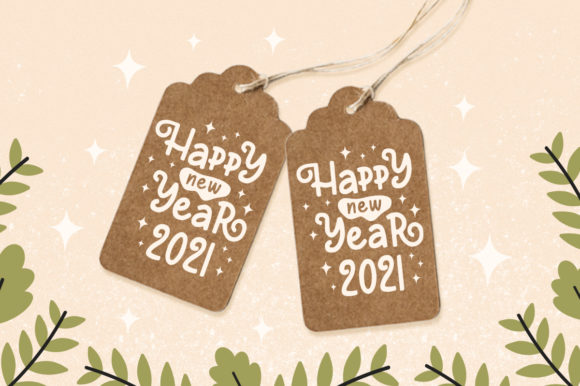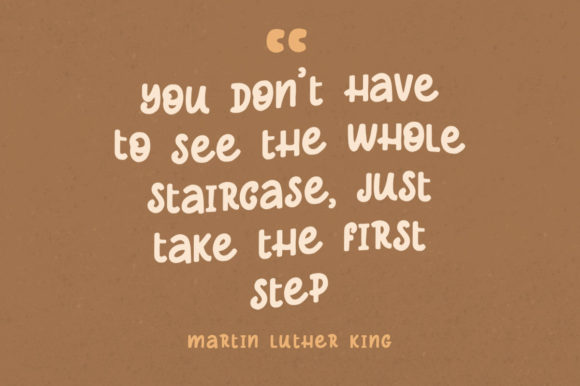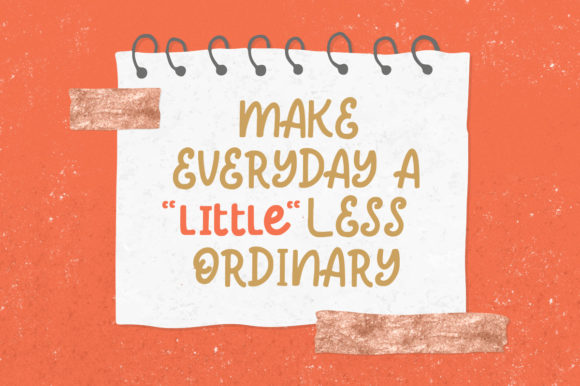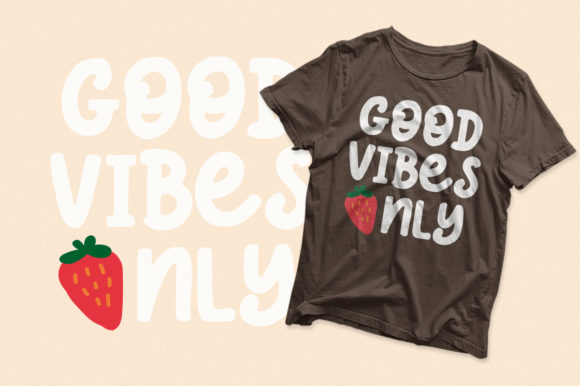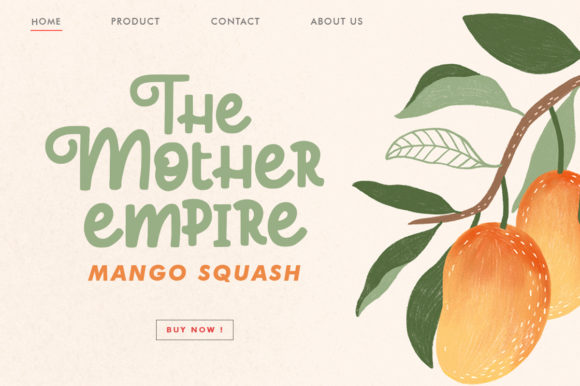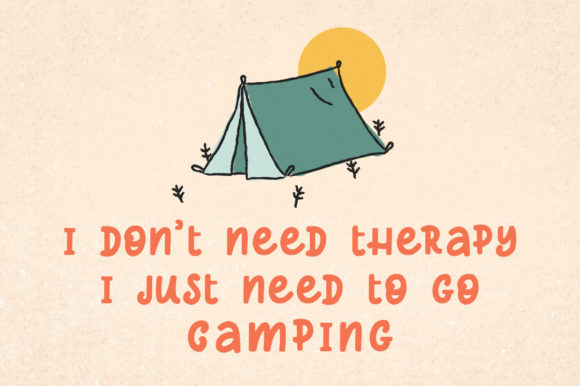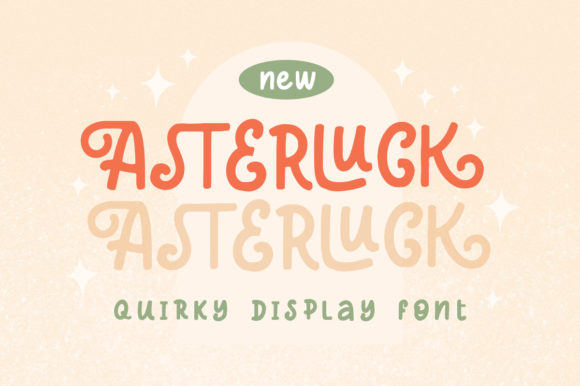
Asterluck Font: Elevate Your Designs with a Trendy and Versatile Display Font
In the world of design, fonts play a crucial role in conveying messages, evoking emotions, and creating visual identities. Among the numerous fonts available, Asterluck stands out as a highly versatile and trendy display font that can instantly elevate your designs. With its unique and all-round design, Asterluck is perfect for designers and crafters looking to add a touch of sophistication and style to their projects.
What Makes Asterluck Font So Special?
Asterluck is an incredibly veritable display font that boasts a trendy and modern design. Its unique features make it an ideal choice for a wide range of design projects, from branding and advertising to packaging and digital media. Here are some key characteristics that set Asterluck apart:
- Trendy Design: Asterluck’s design is inspired by current typography trends, making it perfect for designers who want to create modern and stylish designs.
- Versatility: This font is highly versatile and can be used for various design projects, including headings, titles, and short texts.
- All-Round Design: Asterluck’s design is well-balanced, making it suitable for use in a variety of contexts, from digital media to print materials.
How to Use Asterluck Font in Your Designs
Asterluck is an excellent choice for designers and crafters who want to add a touch of elegance and sophistication to their projects. Here are some ideas on how to use Asterluck in your designs:
- Branding and Logo Design: Use Asterluck to create stunning logos and brand identities that stand out from the crowd.
- Advertising and Marketing: Add a touch of style and sophistication to your ad campaigns and marketing materials with Asterluck.
- Packaging Design: Use Asterluck to create eye-catching packaging designs that grab attention and leave a lasting impression.
- Digital Media: Asterluck is perfect for digital media, including social media graphics, blog posts, and website headers.
Benefits of Using Asterluck Font
By using Asterluck in your designs, you can enjoy several benefits, including:
- Unique and Memorable Designs: Asterluck’s trendy design ensures that your designs stand out and leave a lasting impression.
- Time-Saving: With Asterluck, you can create stunning designs quickly and efficiently, saving you time and effort.
- Consistency: Asterluck’s all-round design ensures consistency across your designs, helping to establish a strong visual identity.
Tips for Getting the Most Out of Asterluck Font
To get the most out of Asterluck, here are some tips to keep in mind:
- Experiment with Different Sizes and Colors: Asterluck looks great in various sizes and colors, so don’t be afraid to experiment and find the perfect combination for your design.
- Pair with Other Fonts: Asterluck pairs well with other fonts, so try combining it with complementary fonts to create visually appealing designs.
- Use in Combination with Images: Asterluck looks great when used in combination with images, so try using it to add text to your images and graphics.
In conclusion, Asterluck is an incredibly veritable display font that can elevate your designs and help you create stunning visual identities. With its trendy and all-round design, Asterluck is perfect for designers and crafters looking to add a touch of sophistication and style to their projects. By using Asterluck, you can create unique and memorable designs, save time, and establish a strong visual identity. So why wait? Try Asterluck today and take your designs to the next level!